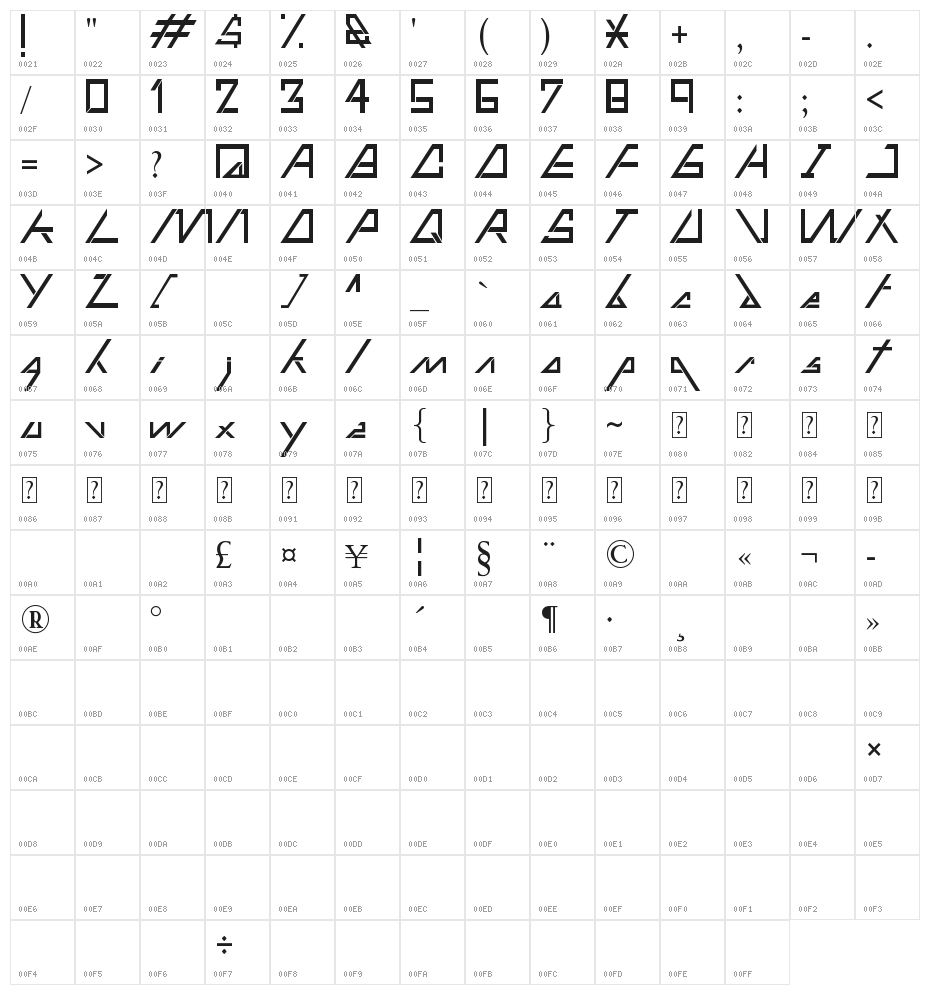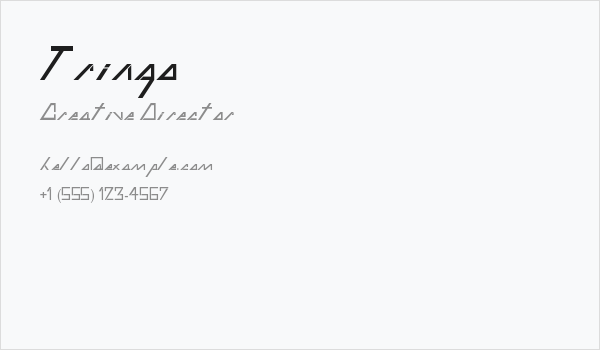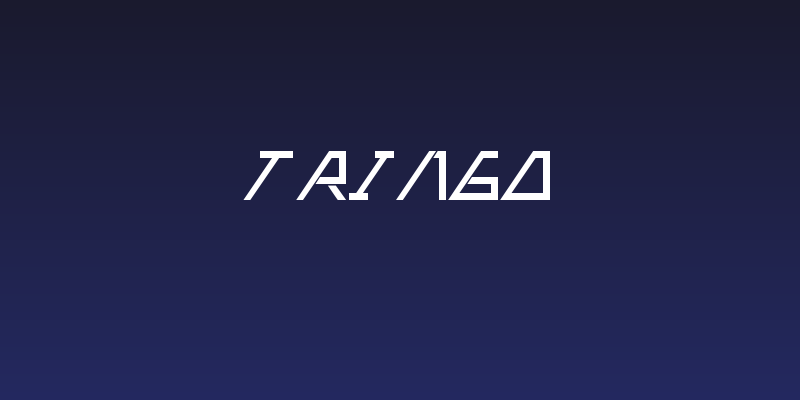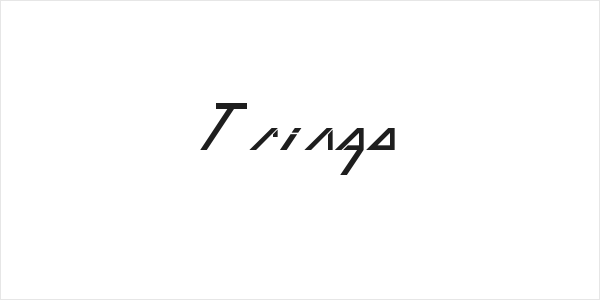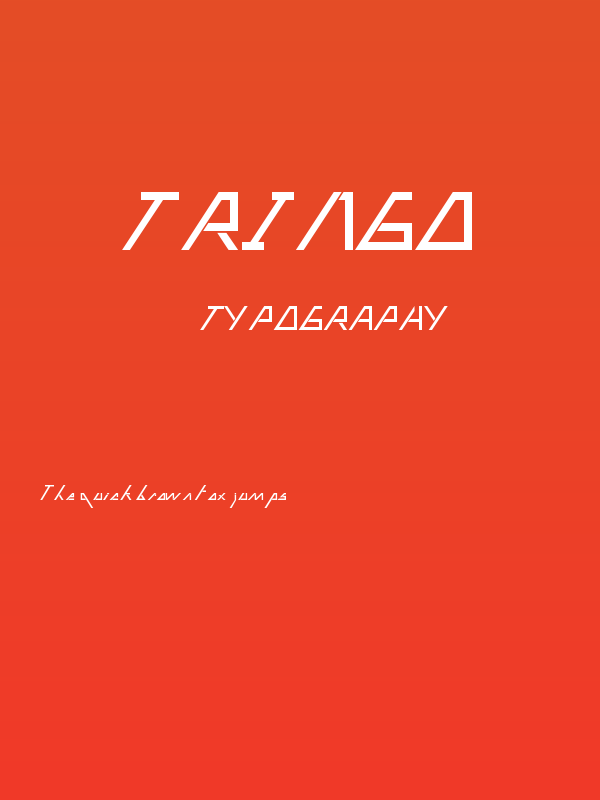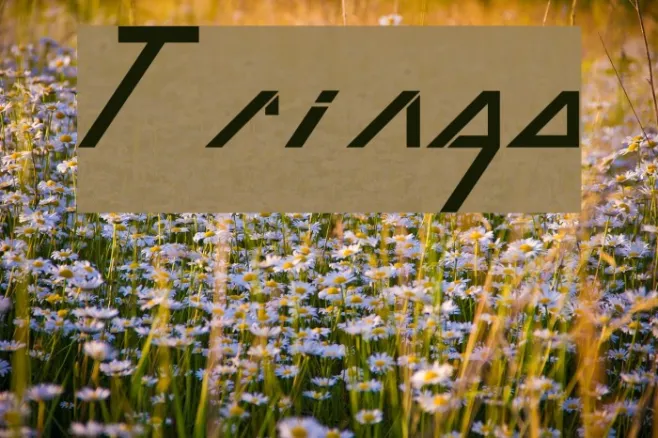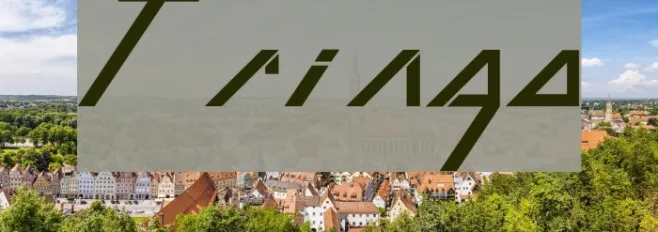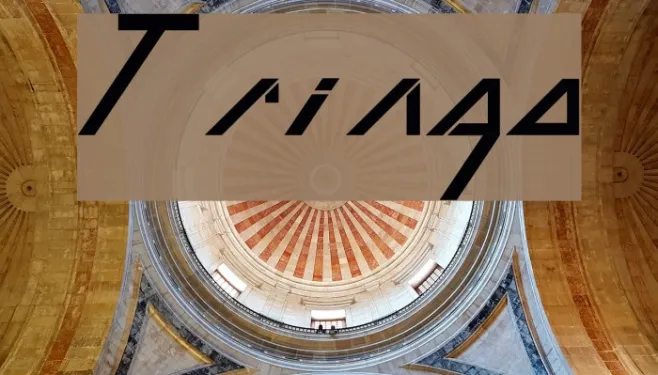
Tringo Font
Tringo Description
This font features a futuristic and angular design, characterized by sharp edges and geometric shapes. The uppercase letters are bold and distinct, with a consistent slant that gives a sense of motion and speed. The lowercase letters maintain the angular theme, offering a unique take on traditional letterforms. Numbers are bold and align well with the overall style, providing a cohesive look. Special characters are creatively integrated, maintaining the font's dynamic aesthetic. This font is ideal for projects that require a modern and edgy feel, such as technology branding, video game titles, or sci-fi themed designs.
| Proposed Projects | Ideal for technology branding, video game titles, and sci-fi themed designs. |